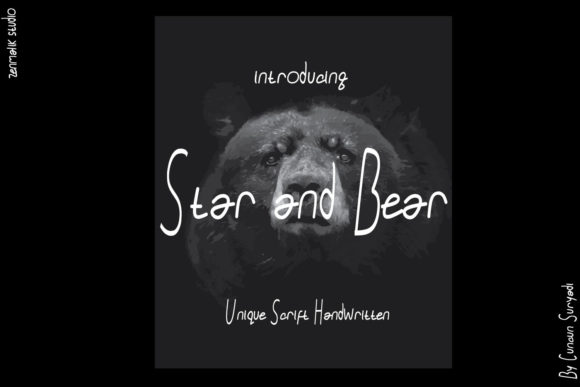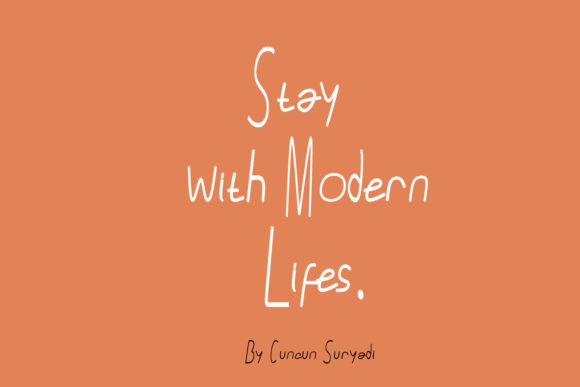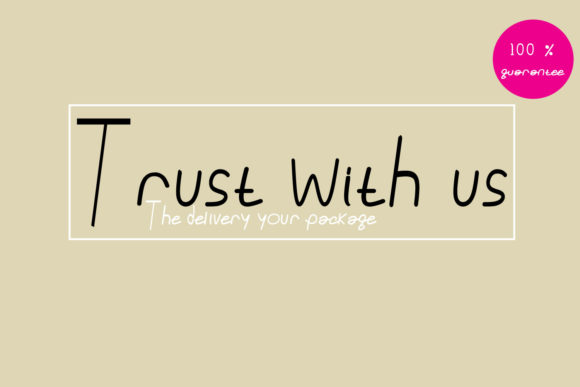
About Star and Bear Font
Star and Bear is a delightful handwritten font that exudes simplicity and cleanliness. With its charming and genuine letterforms, this font is perfect for creating eye-catching logos, branding materials, and quotes that truly stand out. Each letter is carefully crafted with a beautiful touch, adding personality and life to your designs.
The clean and minimalistic style of Star and Bear allows your message to take center stage. The letters are free from excessive flourishes or decorative elements, resulting in a clean and uncluttered appearance. This simplicity ensures that your text is easily readable and impactful, making it an excellent choice for various design purposes.
Star and Bear’s genuine and beautiful touch brings a sense of authenticity to your designs. The natural flow of the handwritten strokes adds a personal and human touch, making your text feel warm and inviting. Whether you’re creating a logo for your business, designing branding materials, or crafting inspirational quotes, Star and Bear will infuse your designs with a genuine and heartfelt quality.
The versatility of Star and Bear makes it suitable for a wide range of design projects. It can be used in both print and digital media, including websites, social media graphics, packaging, merchandise, and more. Its simplicity and clean aesthetic allow it to blend seamlessly with different design styles and themes, ensuring that it complements your overall visual identity.
Overall, Star and Bear is a simple and clean handwritten font that brings a genuine and beautiful touch to your designs. Its simplicity and authenticity make it an excellent choice for logos, branding, and quotes, allowing your message to shine through. With Star and Bear, you can create eye-catching designs that capture attention and leave a lasting impression.